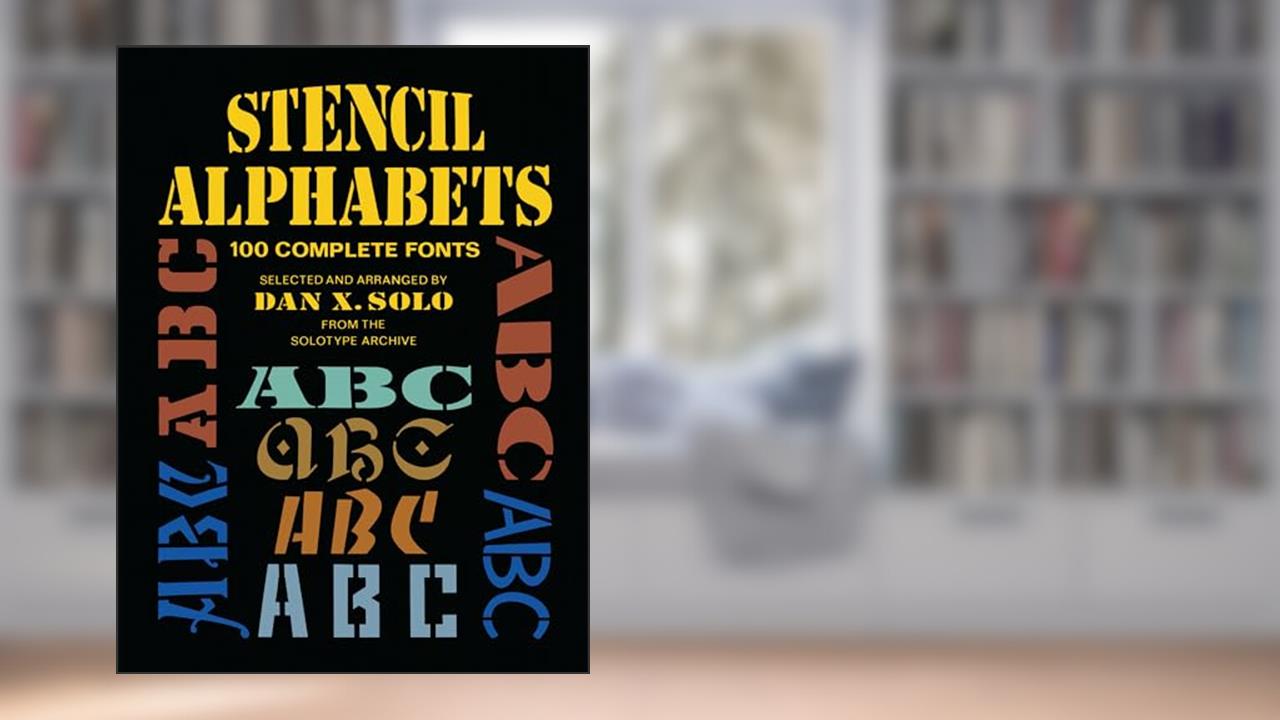
Stencil Alphabets
100 Complete Fonts (Lettering, Calligraphy, Typography)
Dan X. Solo
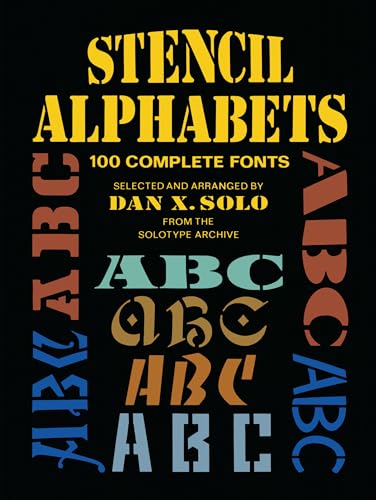
In the vibrant world of design and creativity, Stencil Alphabets: 100 Complete Fonts by Dan X. Solo stands out like a beacon for all lettering enthusiasts. This book isn't merely a collection of fonts; it's a profound dive into the art of typography that will thrill your artistic sensibilities. Every page bursts with potential, inviting you to unleash the designer within. Whether you're a seasoned professional or a budding amateur, get ready to be inspired!
Dan X. Solo masterfully curates an extraordinary array of 100 complete stencil fonts that transcend conventional lettering. Each font encapsulates a rich tapestry of styles, from bold and industrial to delicate and whimsical. Can you feel the pulse of creativity coursing through the ink? This is not just about letters; it's about how those letters breathe life into messages. They convey emotions, commands, and stories, each stroke meticulously crafted to evoke a reaction. 🎨
As you leaf through the pages, the variety of styles feeds your imagination-each font with its unique personality whispers a different narrative. Some fonts shout with authority, while others seduce with elegance. It's as if each serif and sans-serif is vying for your attention, beckoning you to experiment and explore your own creative possibilities. The book serves as a toolbox, allowing you to grasp how different fonts can alter the emotional landscape of your projects.
Readers have lauded this work for its comprehensive approach and accessibility. Many comment that it's like having a personal mentor guiding you through the intricacies of typography. The practical applications of these stencil fonts are nearly limitless; they are perfect for graphic design, signage, tattoo artistry, or even crafting your own unique lettering style! A few critiques mention that certain styles may feel dated, but this only emphasizes typography's dynamic nature and ever-evolving trends.
Historically, stencils have played a pivotal role in various cultures, from military markings to street art, and Solo gives this tradition a fresh voice. Imagine infusing your projects with pieces of history, connecting not just with modern design but also with past innovations! The sheer power of lettering, as Solo deftly illustrates, transcends time and culture, making this book a delightful learning experience.
The world of typography is often overlooked but integral to effective communication in our visually-driven society. With each font you encounter in Solo's compendium, you gain not only aesthetic knowledge but also insight into the Psychology of Font Choice. Consider how different letters can shift perceptions-how a quirky font can elicit joy, while a clean, professional typeface inspires trust. You won't just be learning about fonts; you'll be uncovering secrets that can transform your creative output.
In a society that constantly craves individuality, Stencil Alphabets challenges you to engage with your craft fully. Will you succumb to the ordinary or rise to create extraordinary works of art? 🖌 This book promises not just knowledge but a journey through your own creativity, offering tools that will inspire you long after the last page is turned.
Dive into the fascinating world of typography with Stencil Alphabets: 100 Complete Fonts. Discover, create, and let the letters you mold tell stories worth sharing! Do not miss the chance to elevate your designs from mundane to magical. The only question remains: Are you ready to change the narrative?